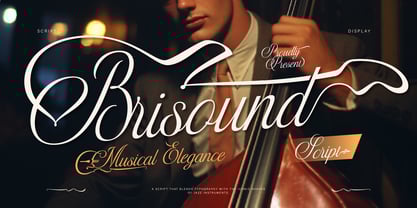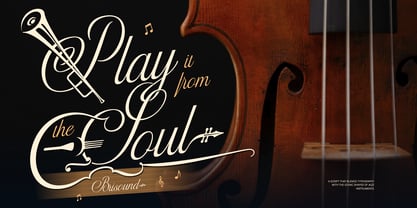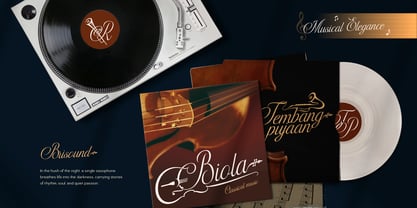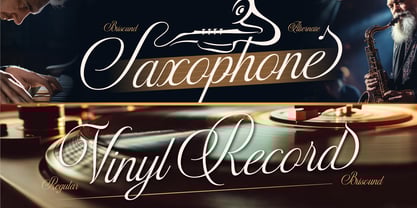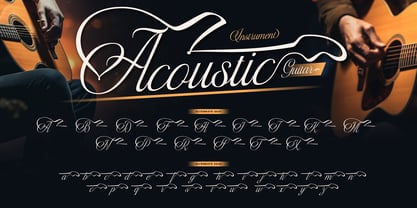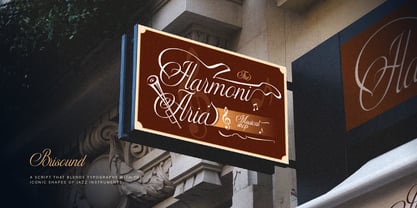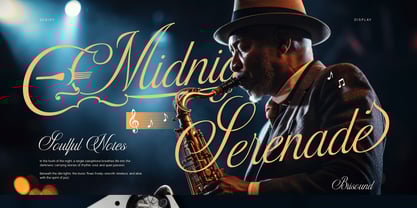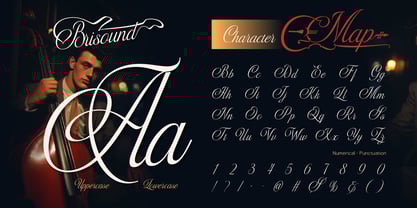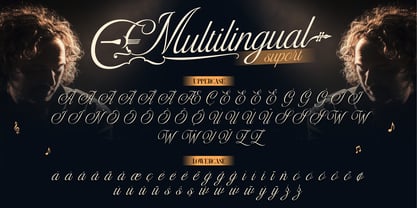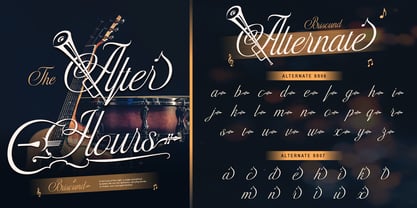
Brisound
von Burntilldead
Die Schriftfamilie Brisound wurde von Eric Kurniawan entworfen und von Burntilldead veröffentlicht. Brisound enthält 2 Stile und Familienpaketoptionen.
Brisound is a beautiful script font that captures the soul of music and elegance in every stroke. Inspired by classic jazz instruments and smooth melodies, this font brings a luxurious and artistic feel to your designs. With its flowing curves, stylish swashes, and unique character shapes, Brisound is perfect for creating eye-catching typography that feels both classy and expressive. It also comes with 10+ alternate characters, giving you more flexibility to create custom and dynamic lettering. This font is designed to stand out, whether you're working on branding, editorial layouts, or creative projects that need a touch of sophistication. Perfect for logo design, branding & identity, music poster & album covers, wedding invitations, editorial & magazine layouts, social media graphics, luxury product packaging.